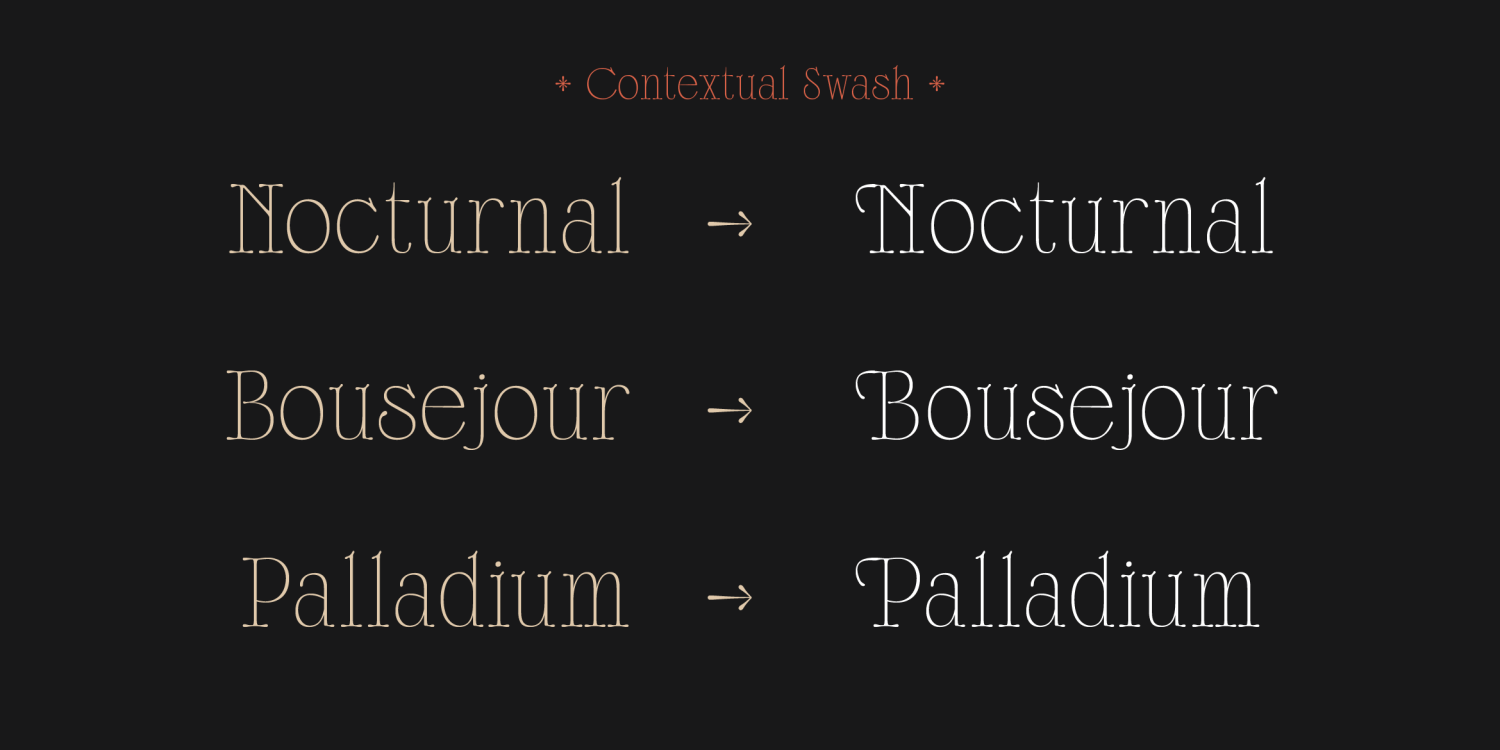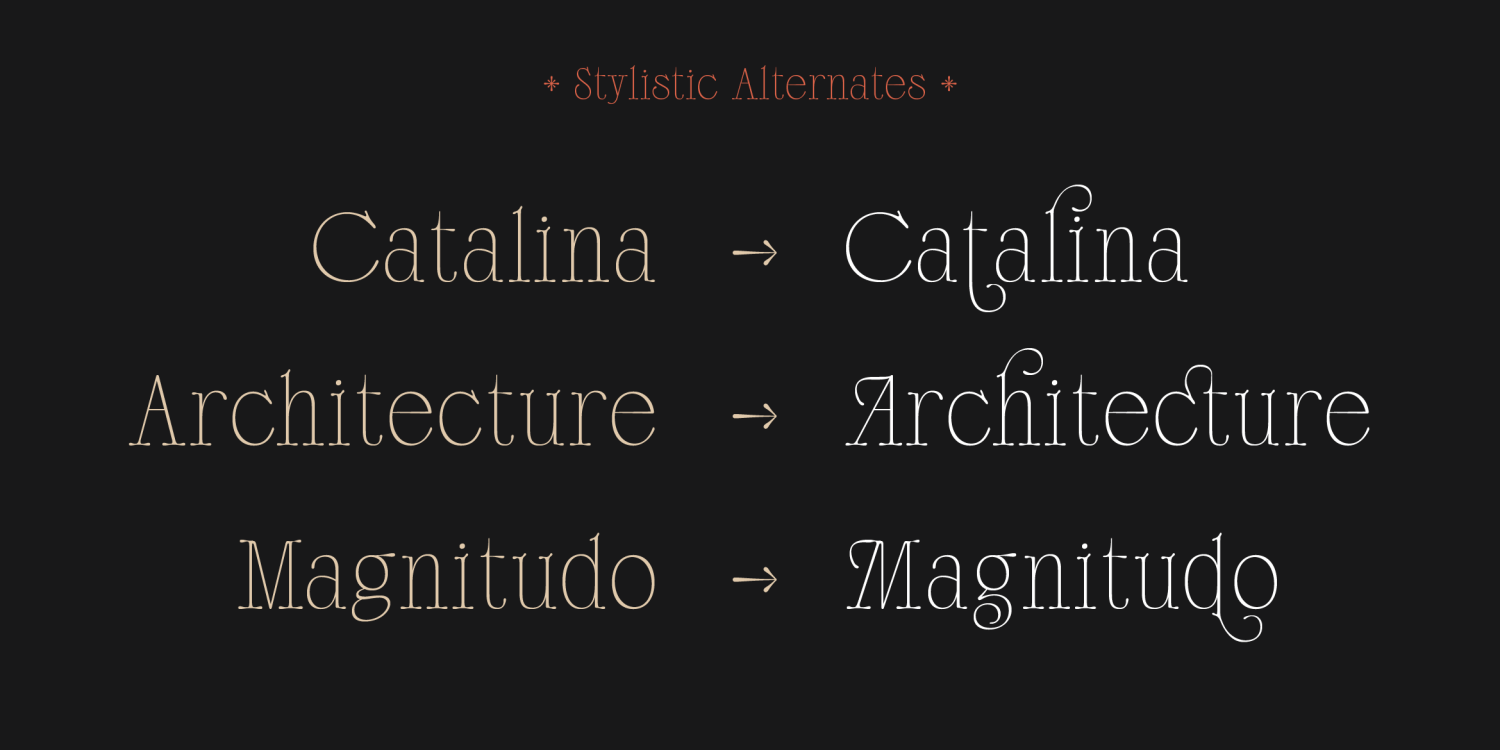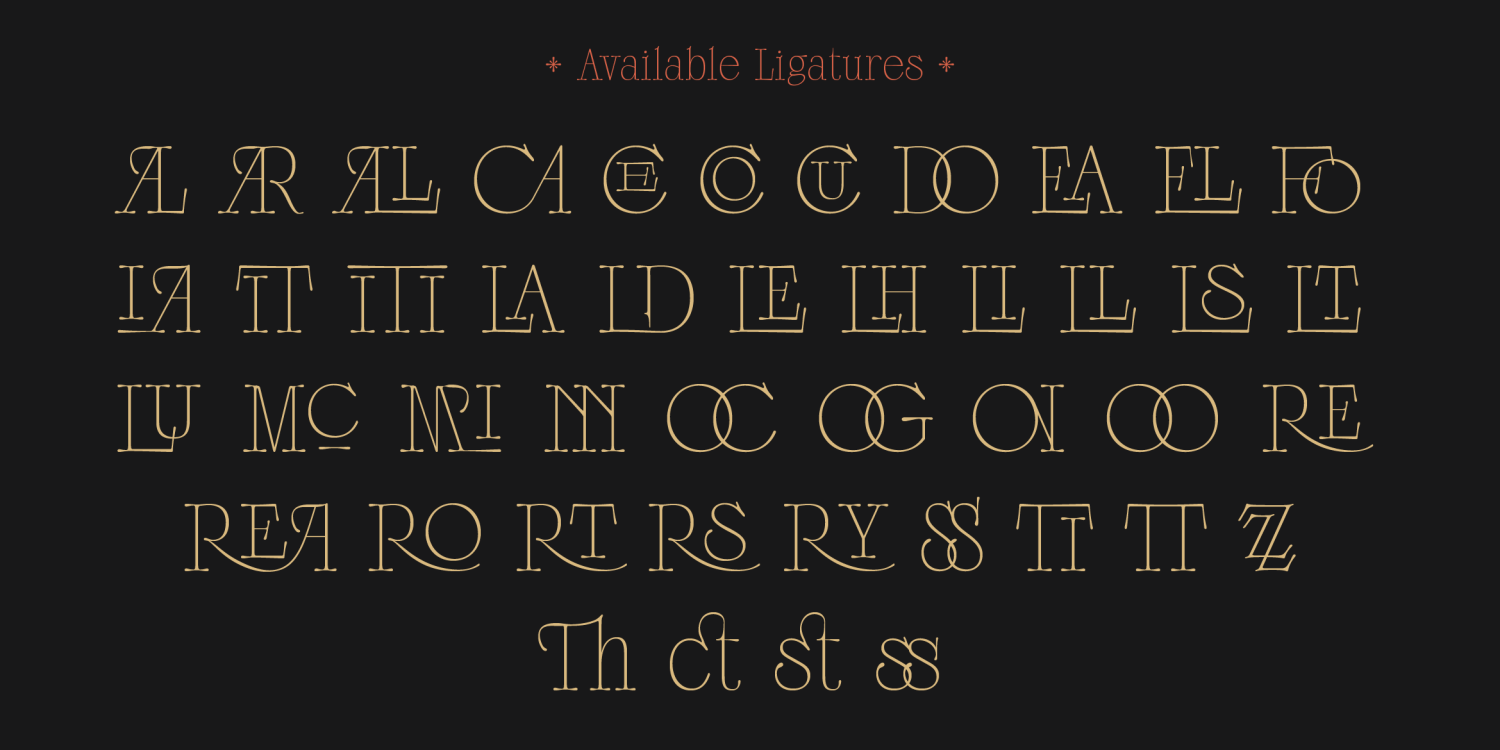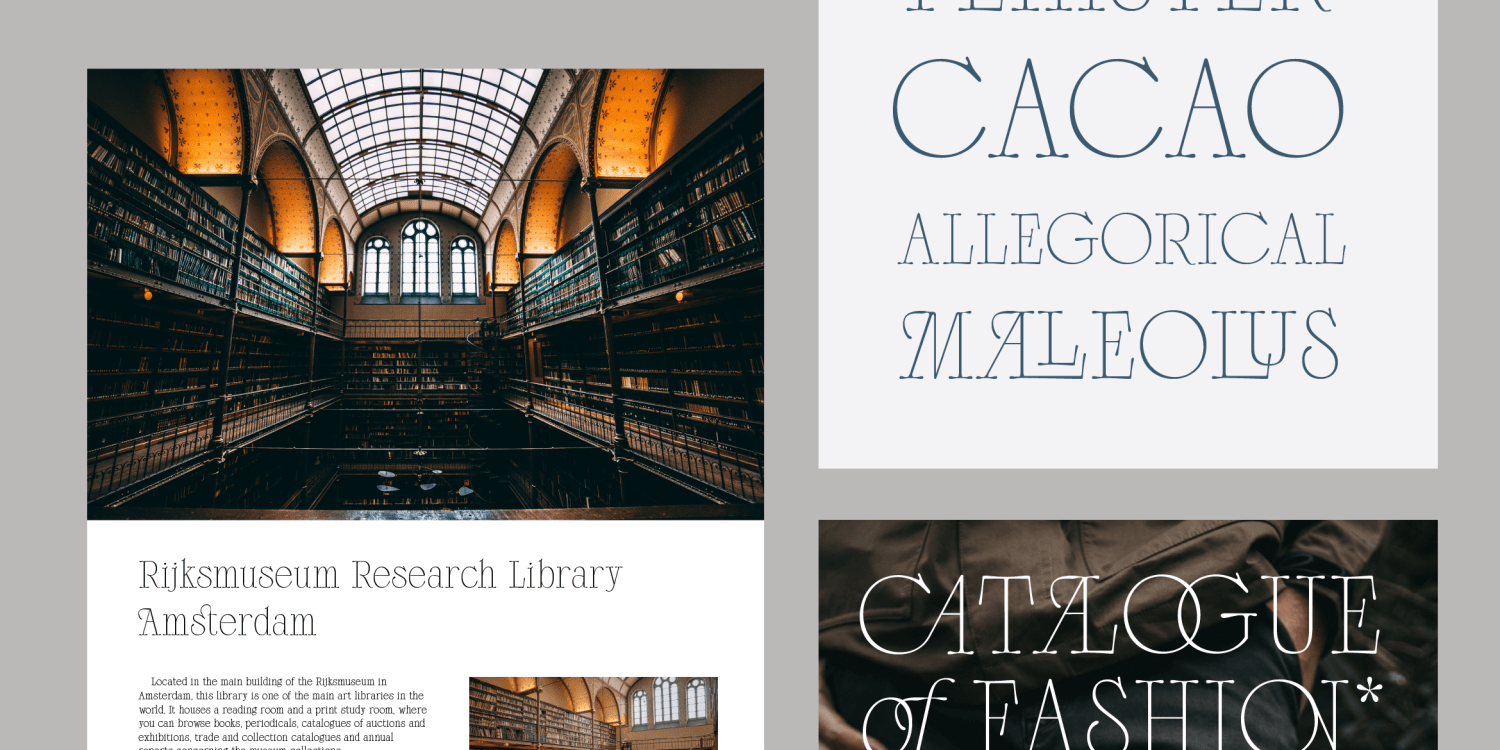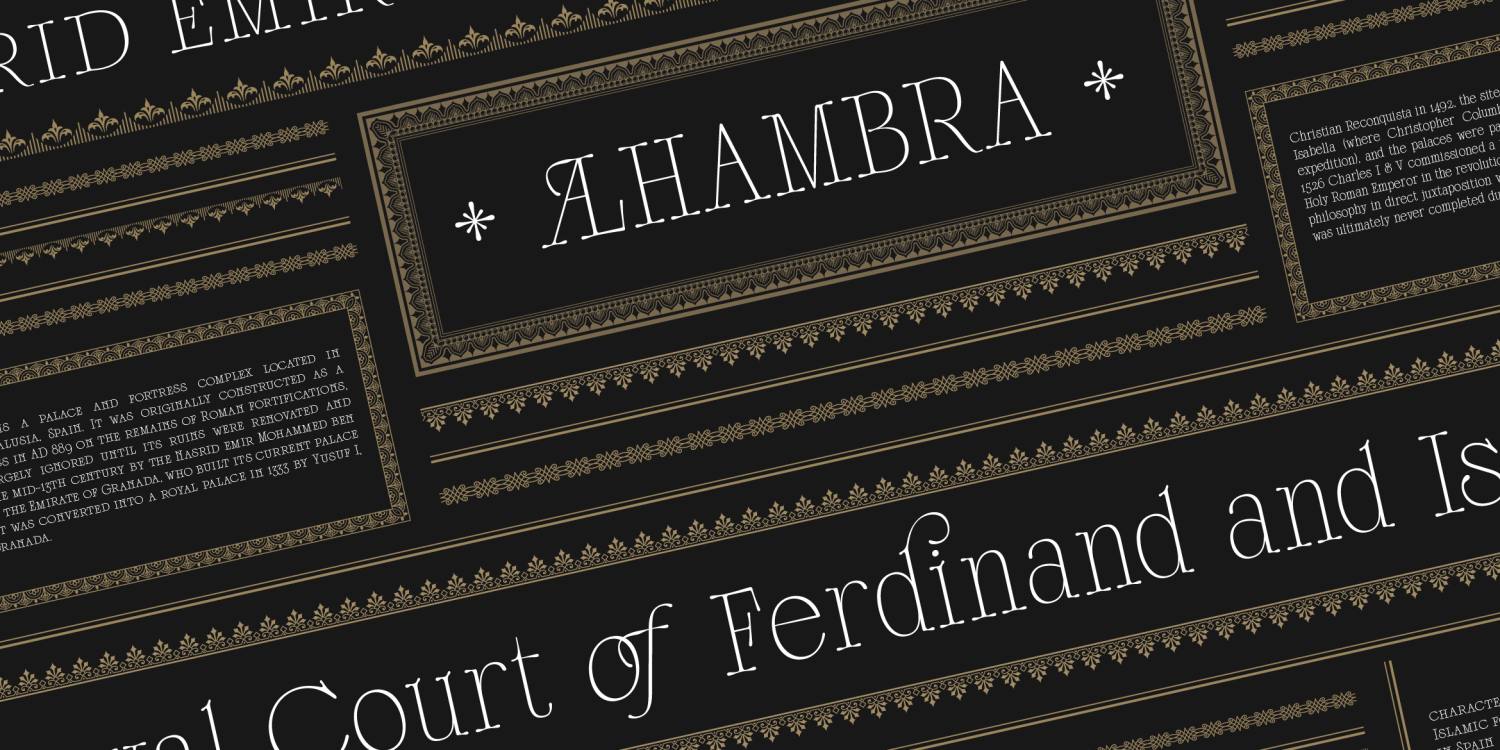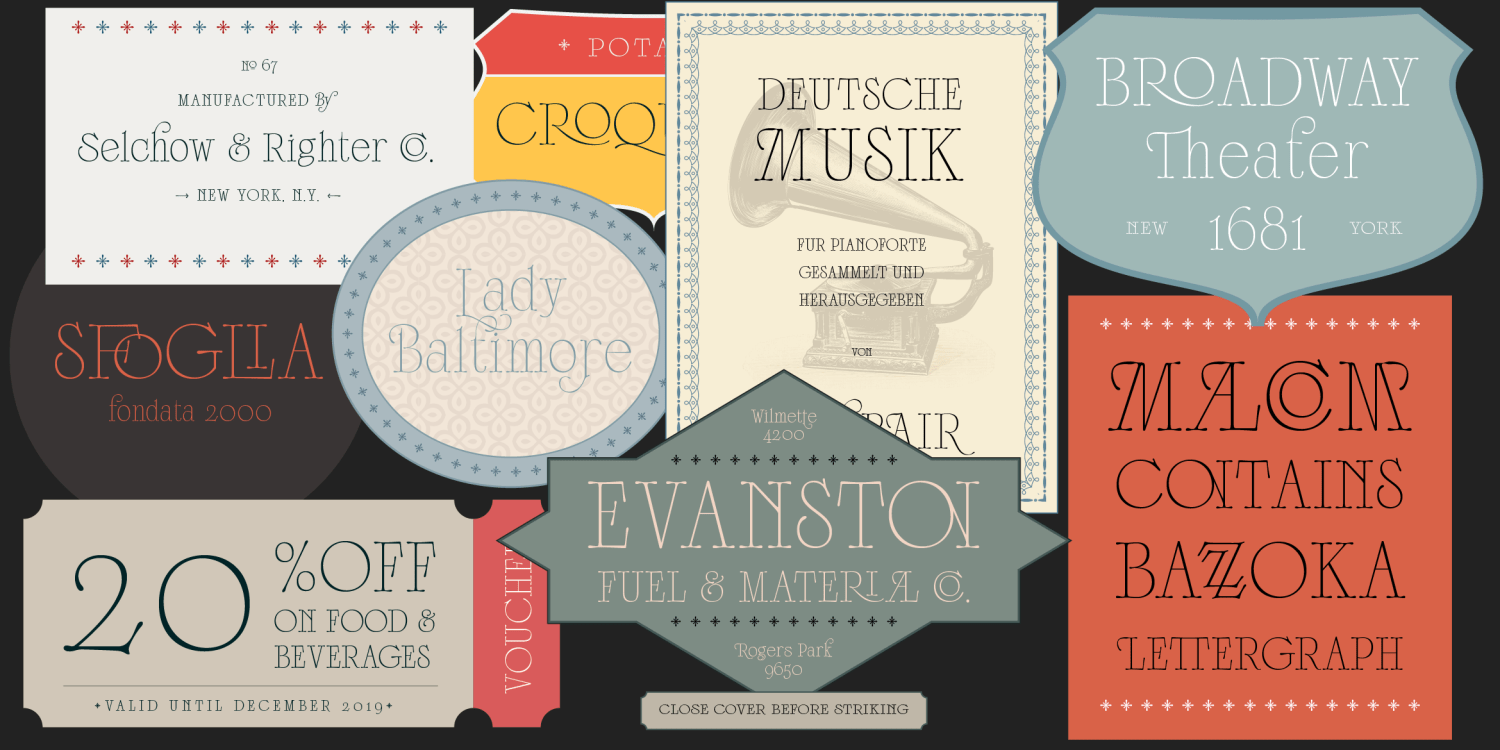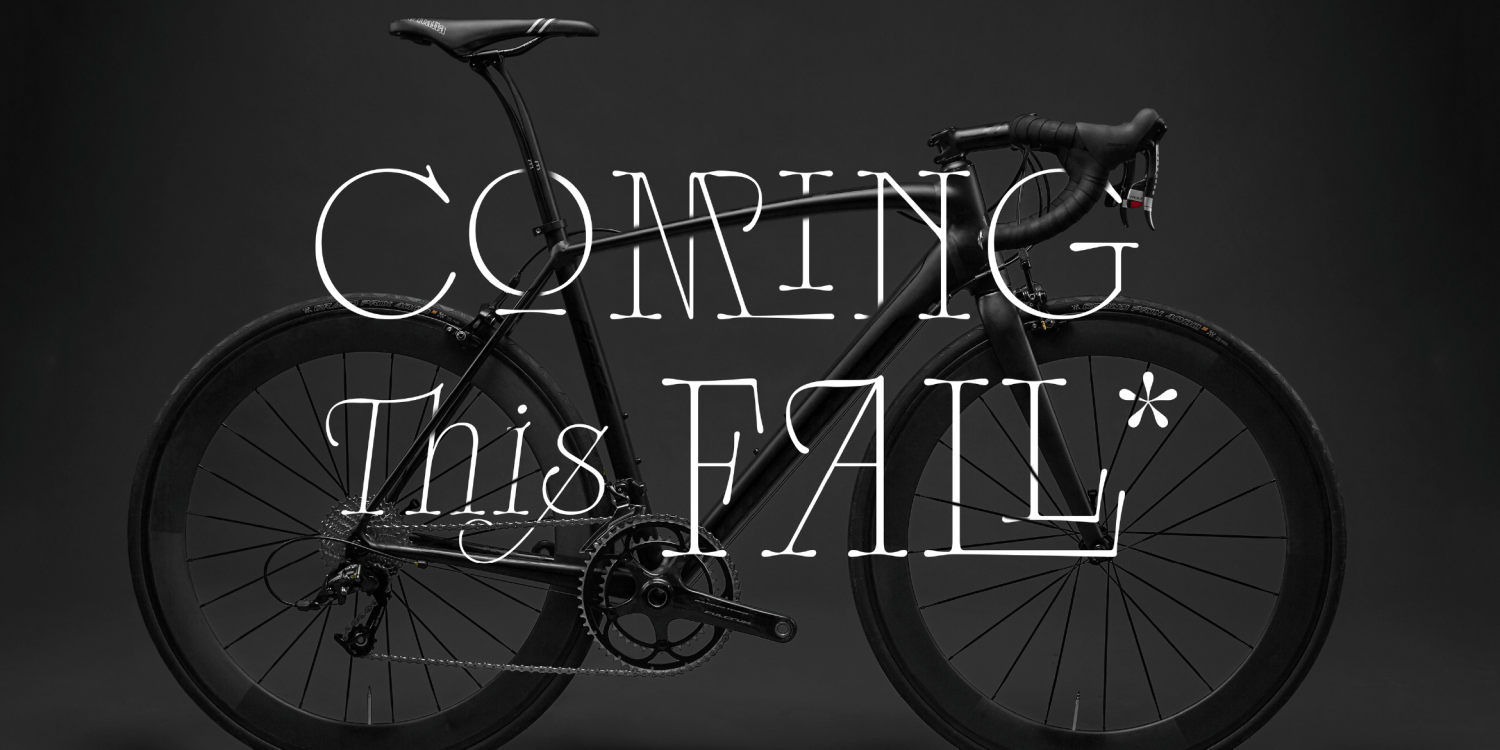
SCOTTSDALE – An Elegant Classic Contemporary Serif The Scottsdale are inspired by an classic contemporary serif, csombined with simple modern look. It's a versatile. It can be used with a lot of style design. The Characteristic of Scottsdale are on…